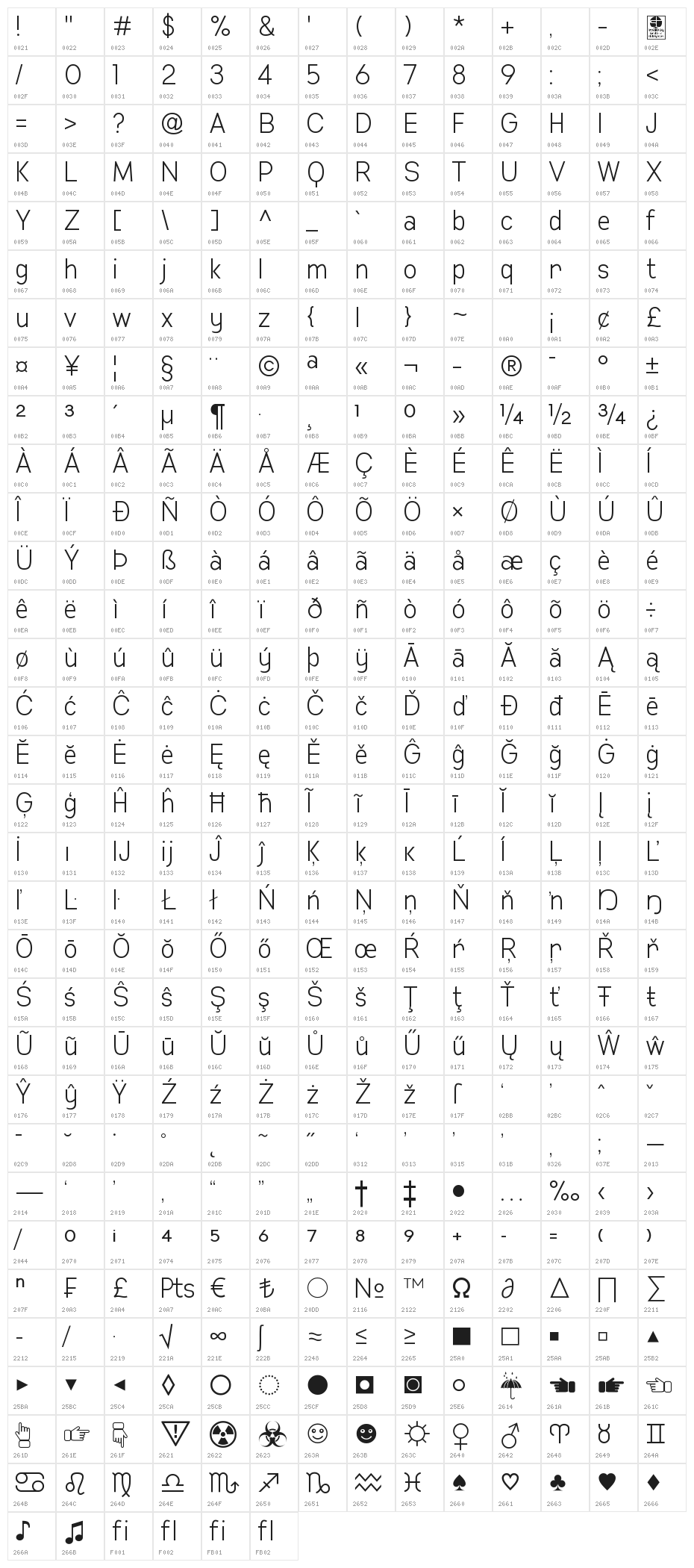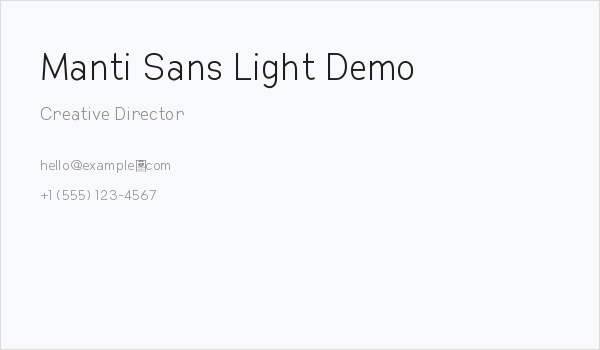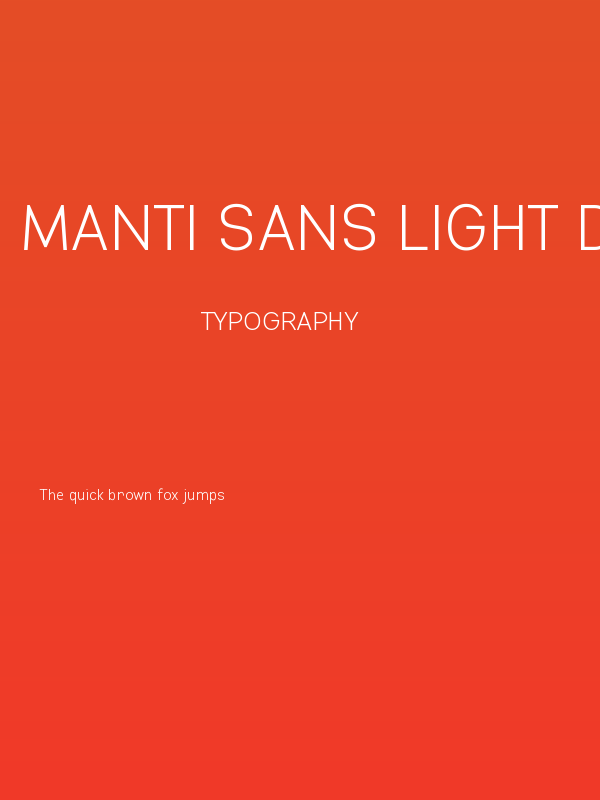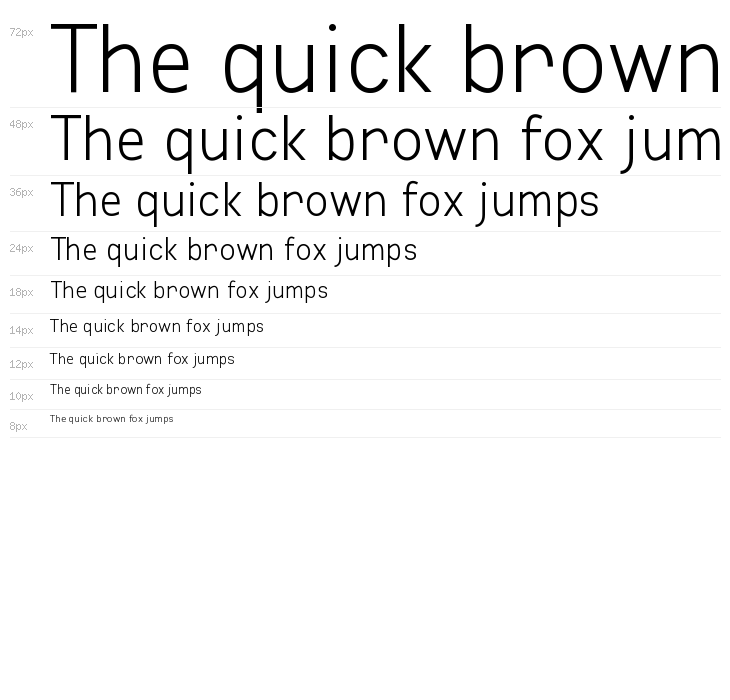
Manti Sans Light Demo Font
Manti Sans Light Demo Description
This font features a clean and modern sans-serif design with a light weight, making it ideal for minimalist and contemporary projects. The characters are well-proportioned with a consistent stroke width, providing a sleek and professional appearance. The uppercase and lowercase letters maintain a harmonious balance, while the numerals and special characters are clear and easily legible. This font's simplicity and elegance make it versatile for various design applications.
Proposed ProjectsIdeal for branding, web design, corporate materials, and editorial layouts.